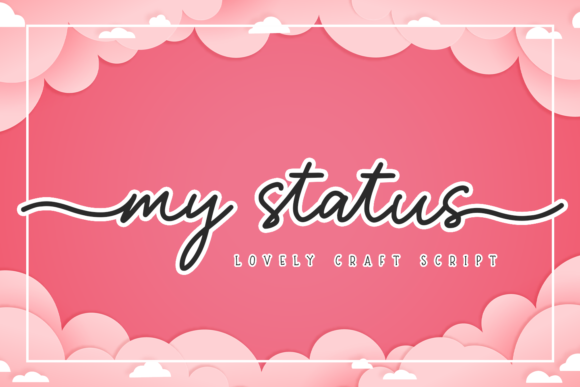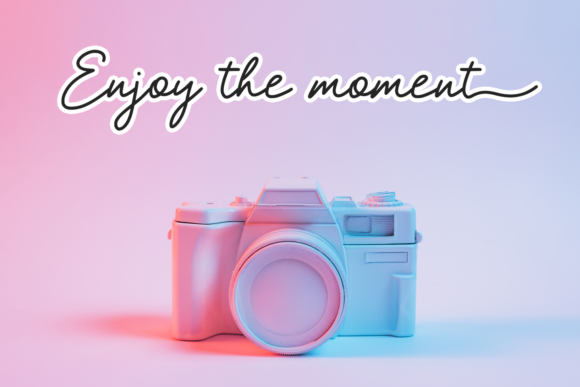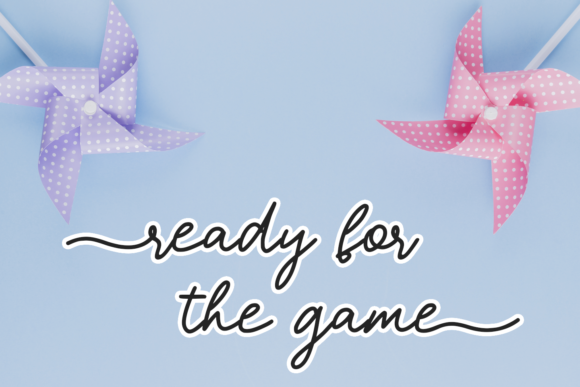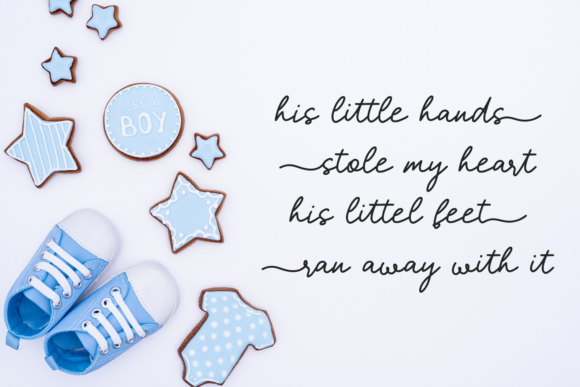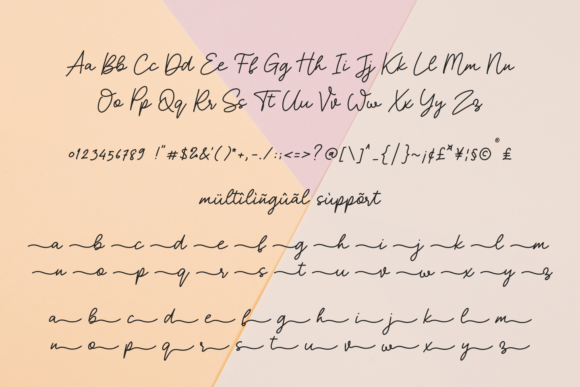
My Status Font
About My Status Font
My Status is a lovely script font that’s great for representing class, romance, and style. It will elevate any craft project to the highest level!